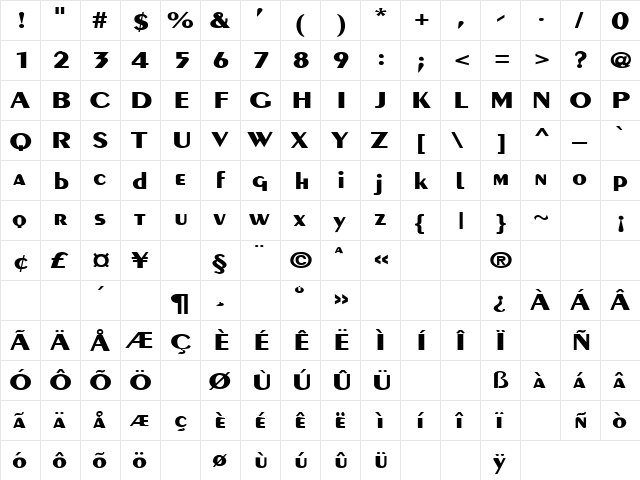
Physical 2 Regular
Design Context for Physical 2 Typeface
Physical 2 takes a measured approach to typography — its balanced proportions and neutral character make it a reliable workhorse for both digital and print work.